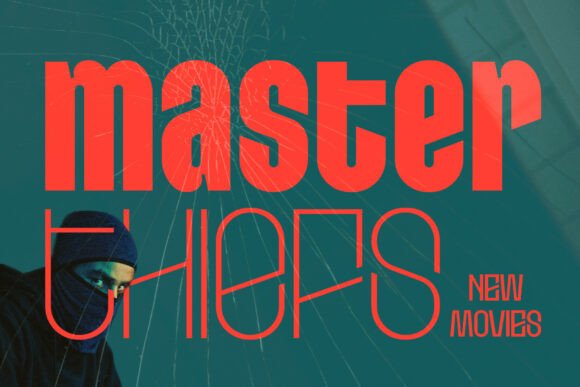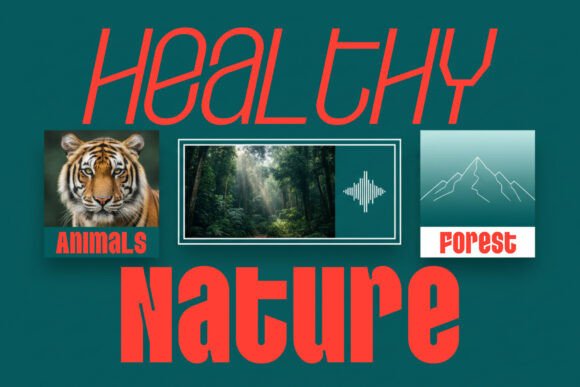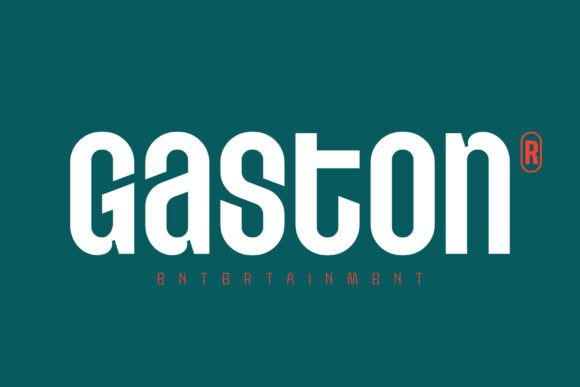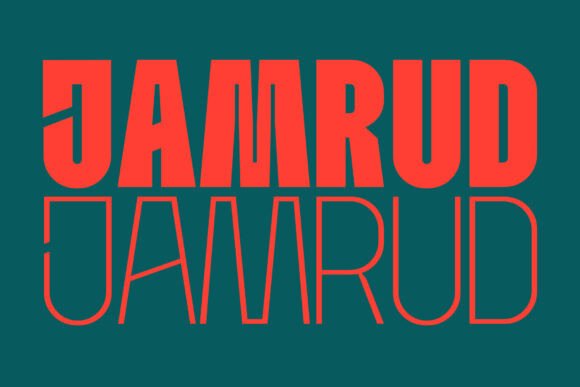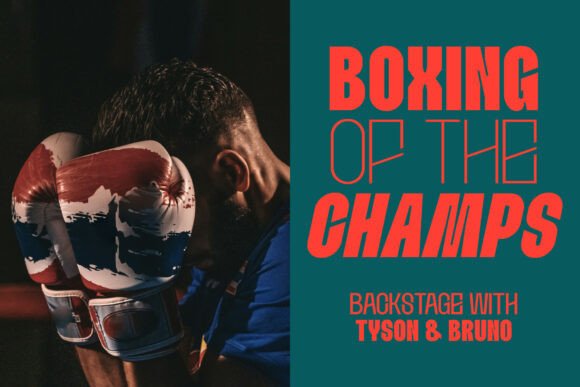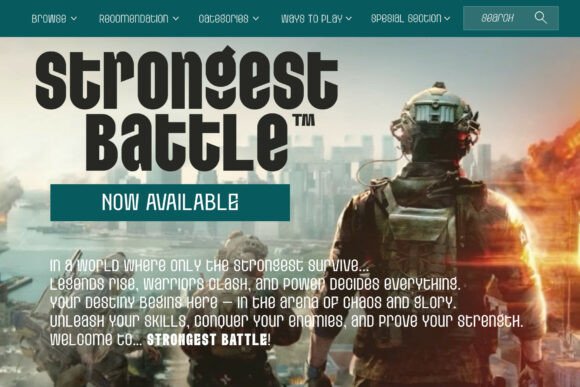
Introduction to Eatge Font
As designers, we’ve all been there – staring at a blank canvas, desperately searching for the perfect font to elevate our creative project. The struggle is real, but the solution is often simpler than we think. Enter Eatge Font, a stylish sans-serif typeface family that’s been making waves in the design community. With its refined, clean, and versatile aesthetic, Eatge Font is the ultimate design resource for any creative project.
Whether you’re working on a bold logo, a striking poster, or a high-quality branding campaign, Eatge Font has got you covered. Its 10 different font styles offer complete flexibility, from Thin to Bold, with matching Italic styles for added depth and sophistication. And the best part? You can download Eatge Font for free, making it a valuable addition to your design arsenal.
So why is Eatge Font so valuable for designers? For starters, its transparent background makes it perfect for any design project, from digital to print. Plus, its unique blend of contemporary design and retro undertones gives it a timeless quality that’s hard to resist. With Eatge Font, you can create high-quality designs that truly stand out from the crowd.
Key Features of Eatge Font
- Unique Eatge Font style with a transparent background for flexibility
- Perfect for digital designs, print materials, and web applications
- Great for designers, artists, and creatives looking for a distinctive font
Honest Review: Eatge Font
I recently had the chance to work with the Eatge Font, a free download available for anyone looking to elevate their creative project with a high-quality, unique design resource. Overall, I was impressed with the font’s versatility and its potential to add a touch of sophistication to any design.
- ✨ The Eatge Font features a sleek, modern design that’s perfect for creative projects requiring a transparent background or bold typography.
- ✨ The Eatge Font is highly customizable, allowing designers to adjust the font’s style and layout to suit their specific design needs.
While the Eatge Font is a valuable addition to any design arsenal, there are a few limitations to consider:
- ⚠️ The Eatge Font may not be suitable for projects requiring complex typography or intricate design elements.
Overall, the Eatge Font is a solid choice for designers seeking a high-quality, free design resource that can add a touch of elegance to their creative project.
Eatge Font is a high-quality design resource ideal for creative projects. This free download offers a unique and stylish font that can elevate your designs to the next level. With a transparent background, you can easily integrate it into your project.
Experiment with different font sizes and colors to create a unique visual effect.
Use Eatge Font in combination with other design elements to create a cohesive look.
Common Use Cases for Eatge Font
Eatge Font is ideal for use in logos, branding materials, and marketing campaigns.
It can also be used in digital design projects, such as website headers and footers.